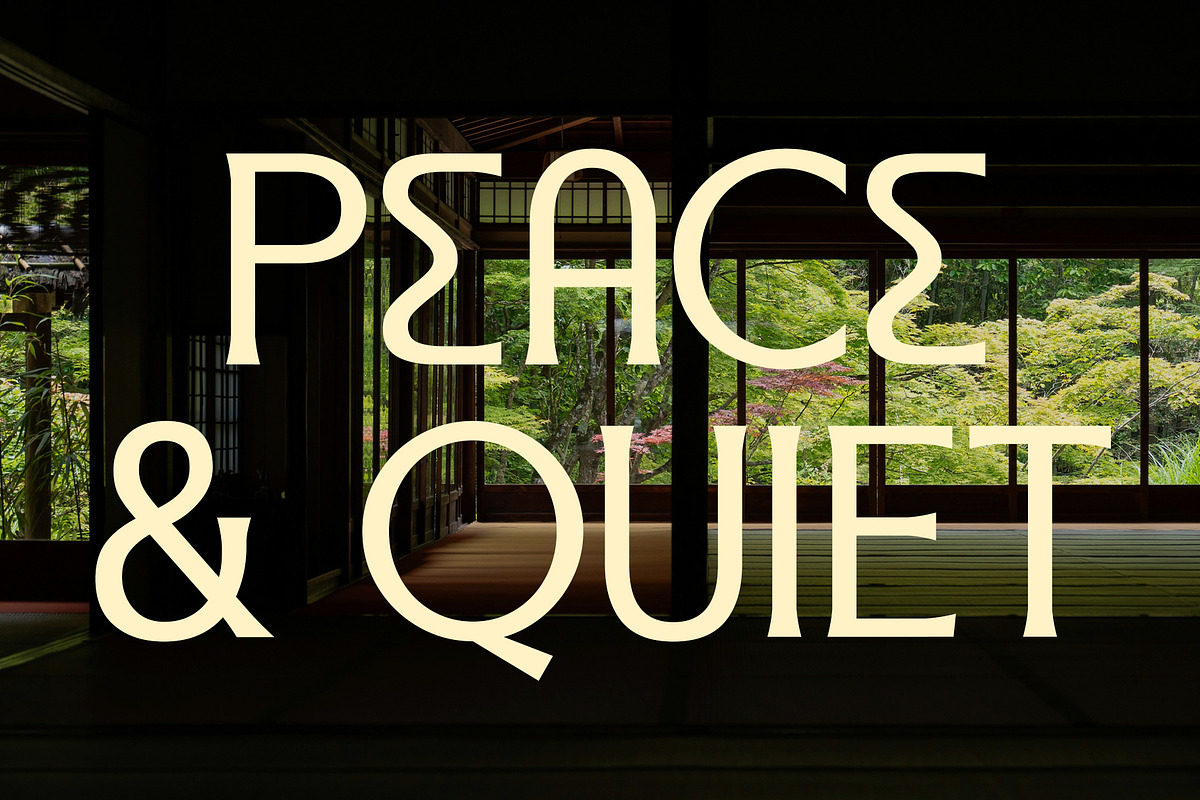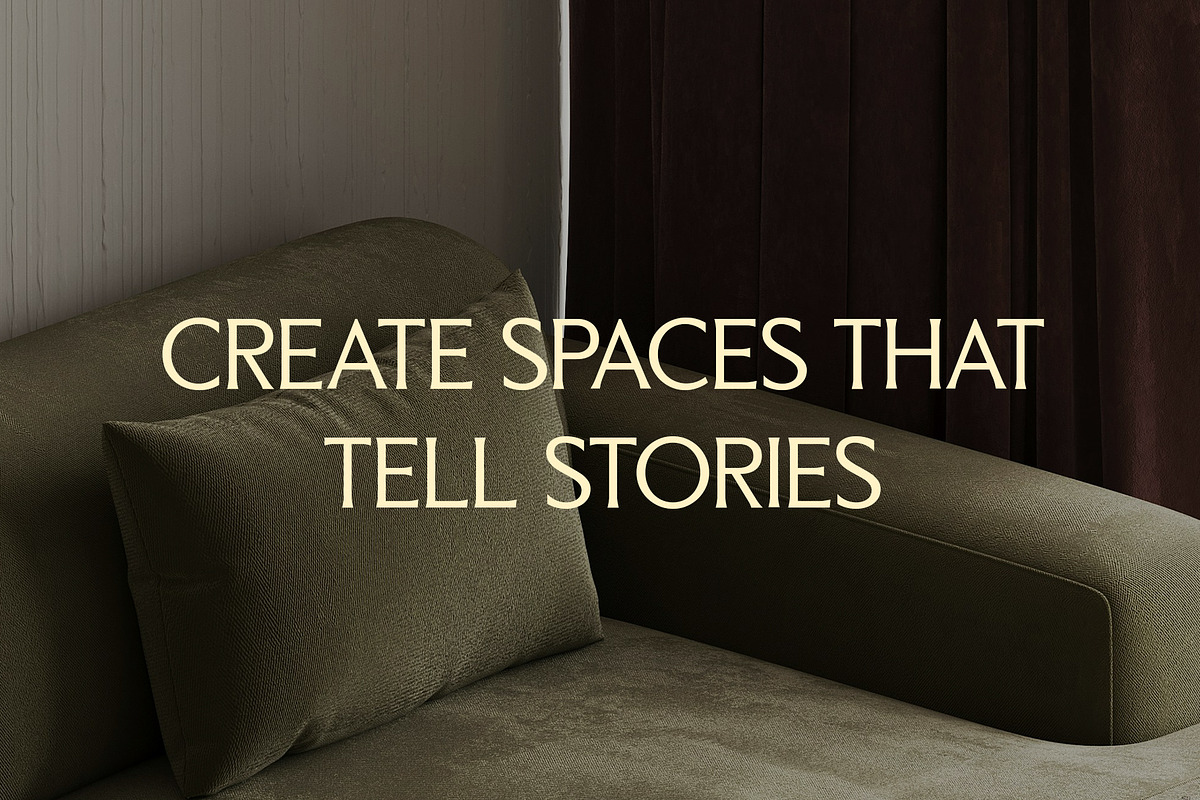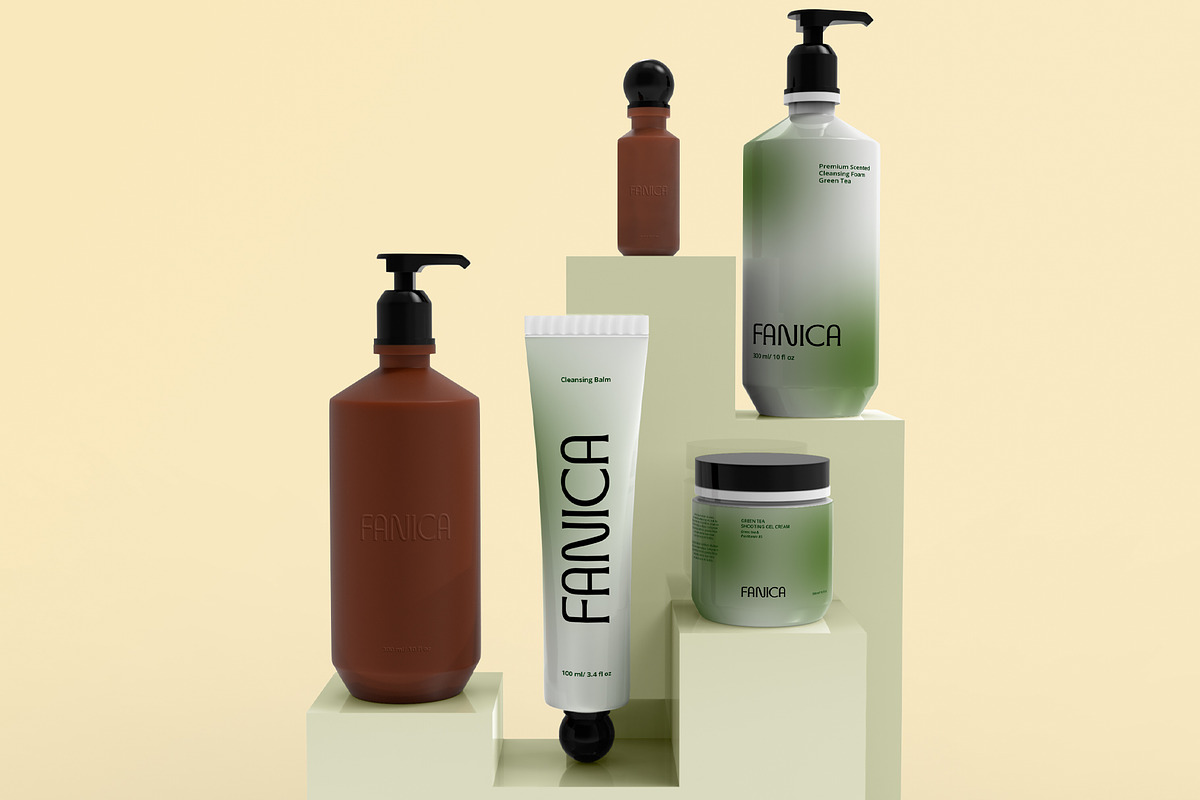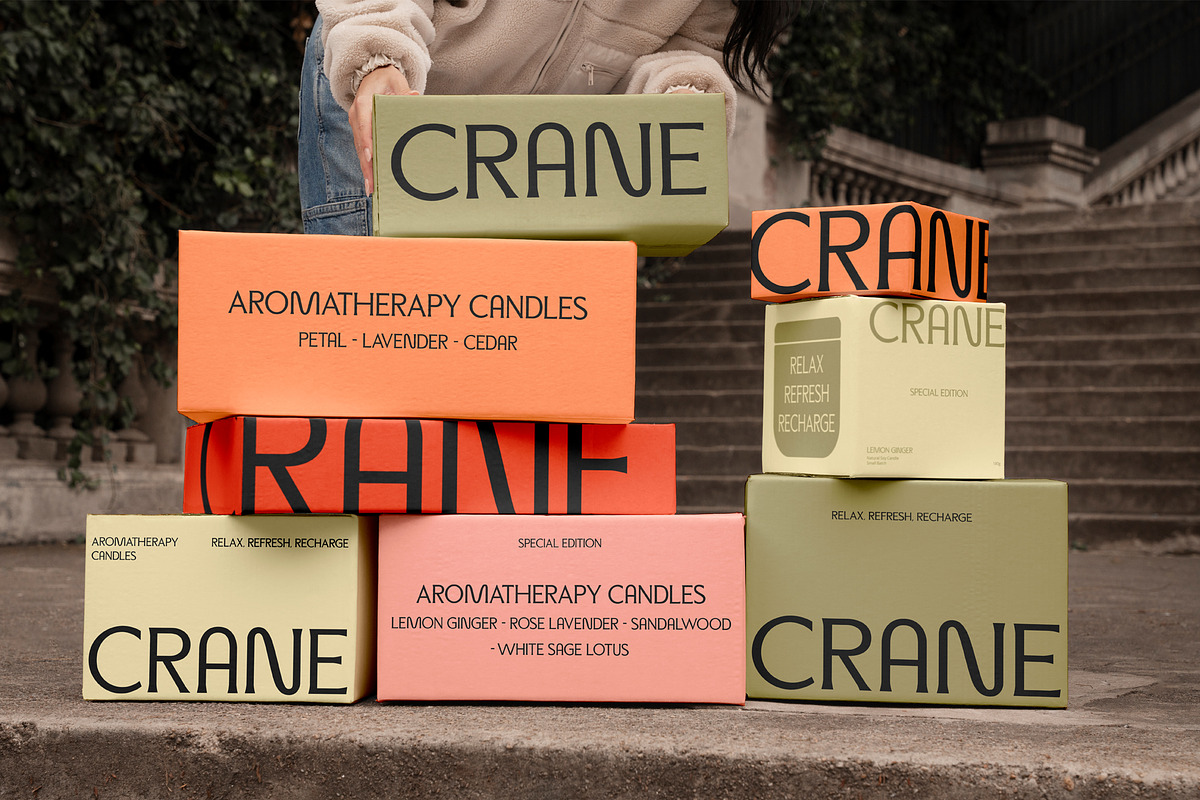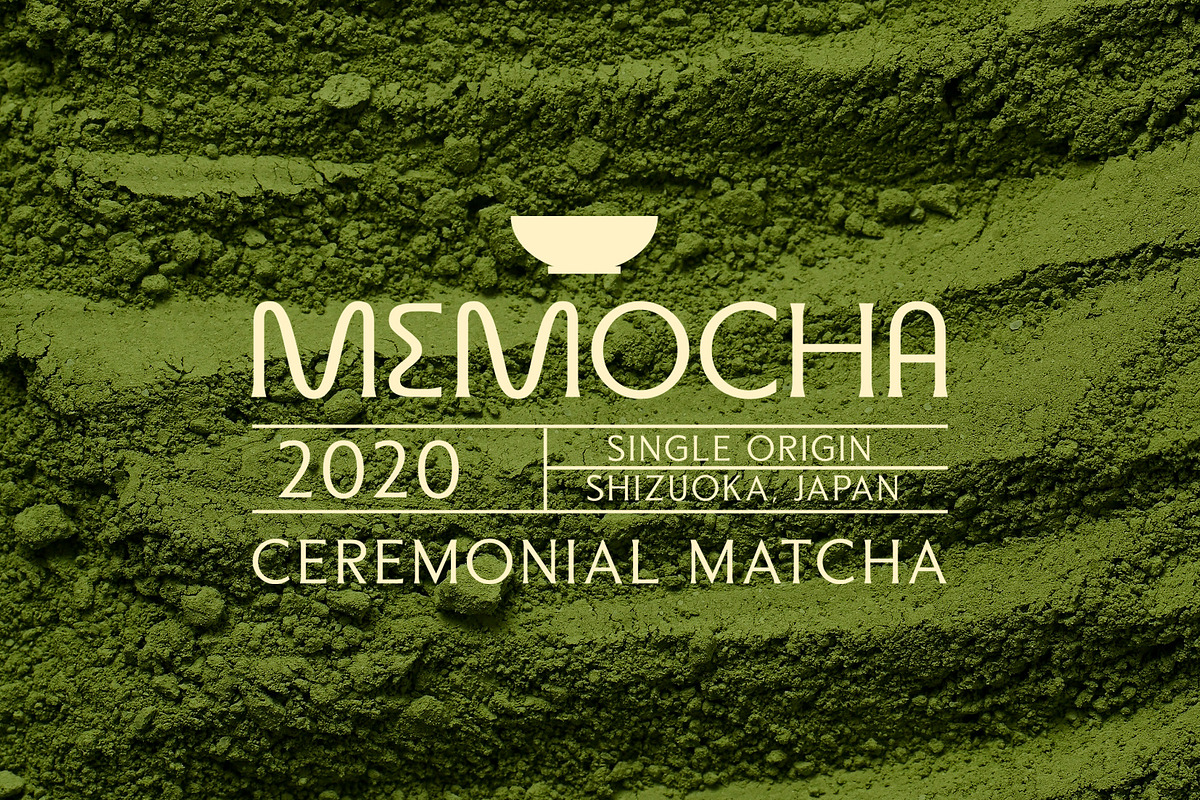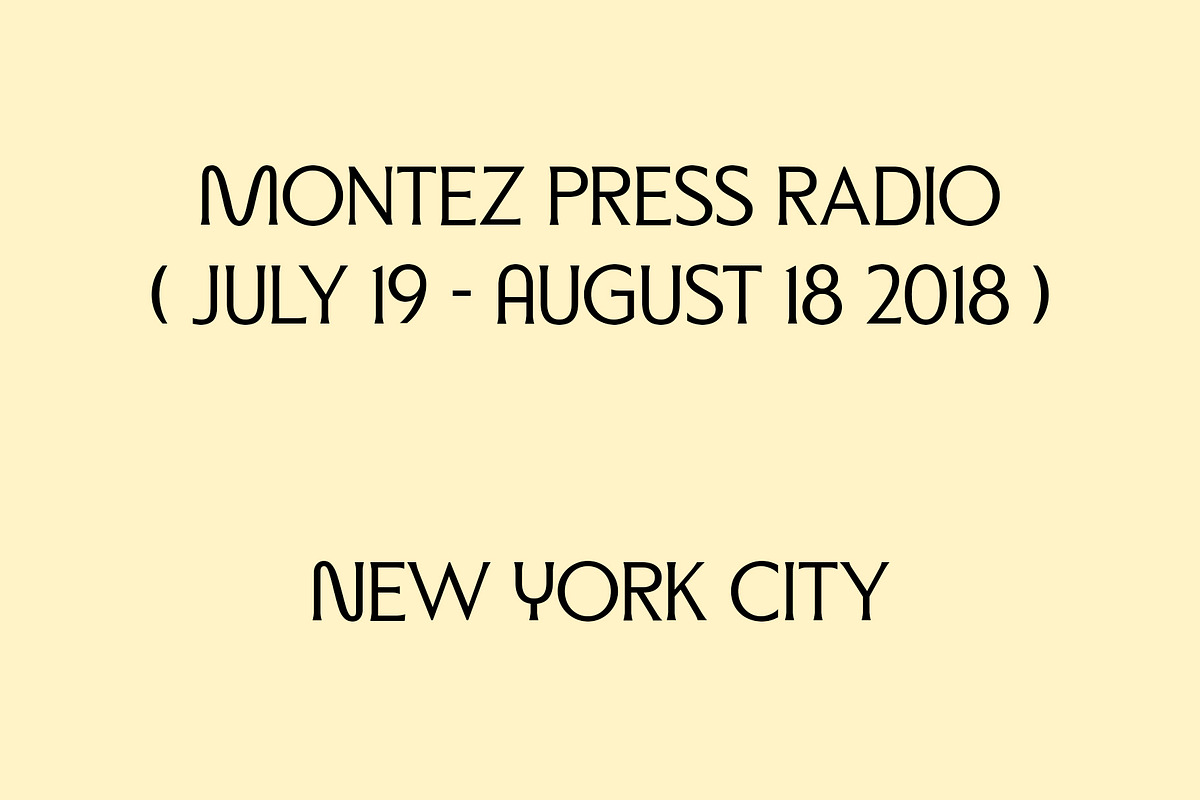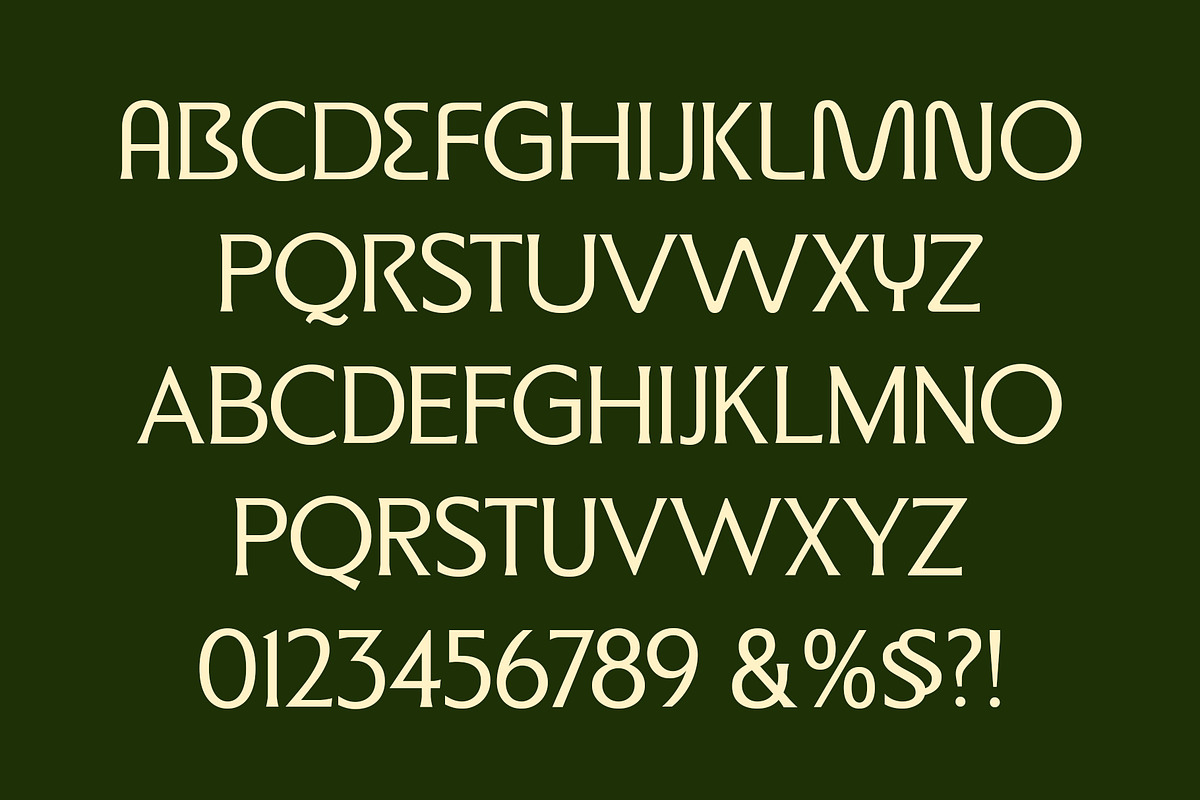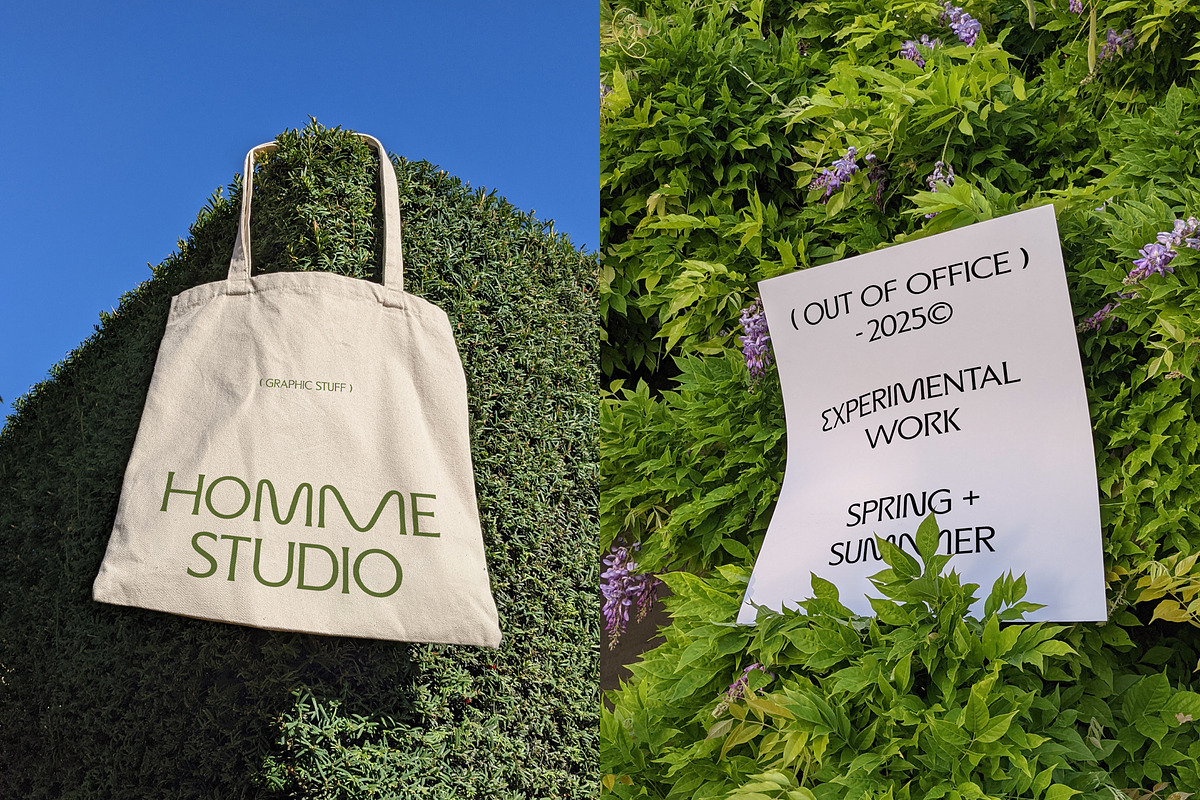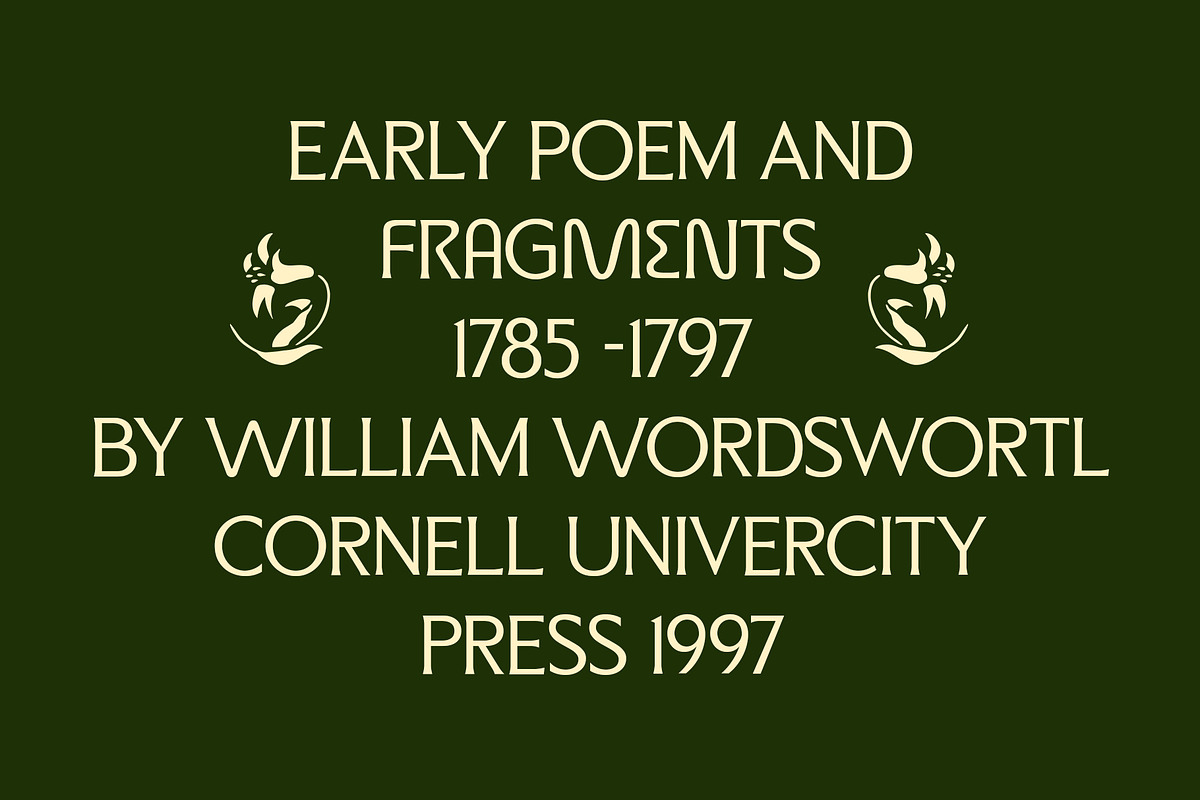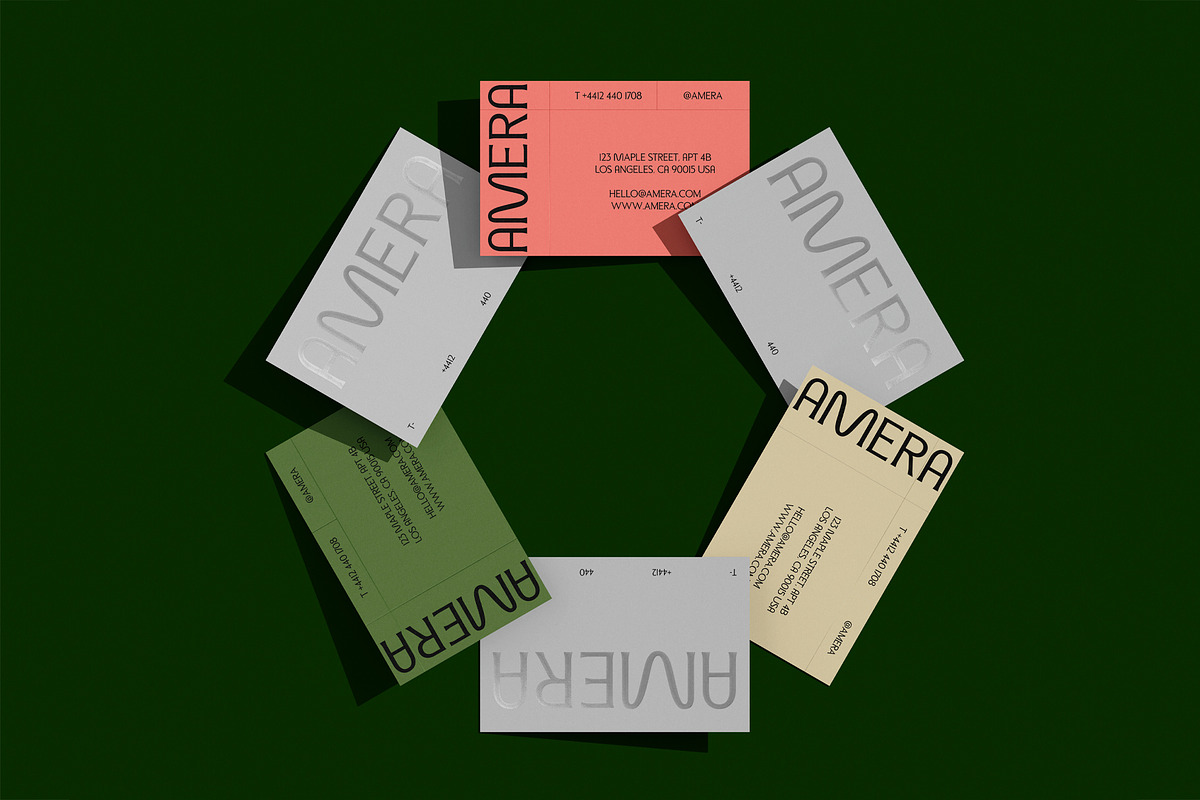
ED Micona - Display Serif Font
ED Micona is an elegant all-caps display serif font that blends classic sophistication with modern simplicity. Featuring refined letterforms, subtle curves, and graceful proportions, this font was designed to make a bold yet timeless statement.
Perfect for logos, editorial headlines, posters, packaging, and branding projects, ED Micona brings a high-end, artistic flair to any design. Its unique all-caps style ensures every word stands out with impact and clarity.
- Punctuation and Marks
- Stylistic set & Ligatures